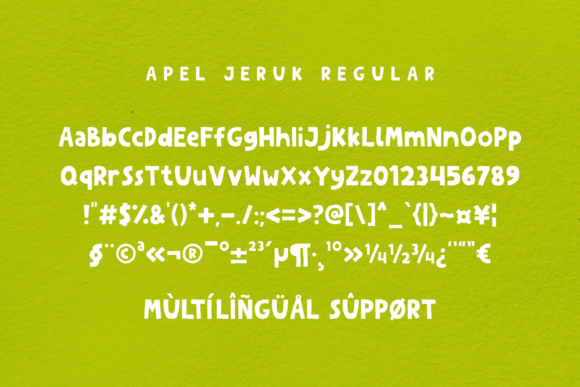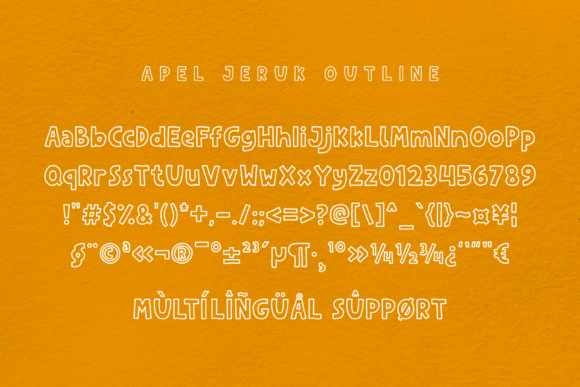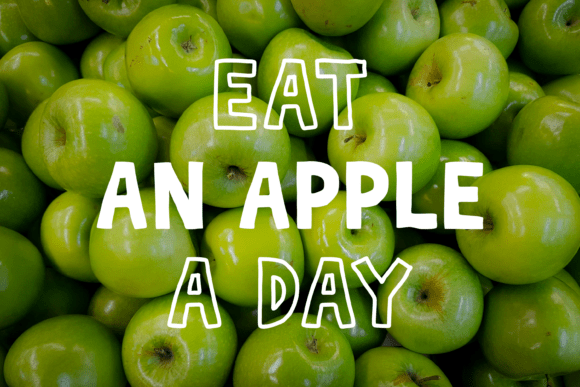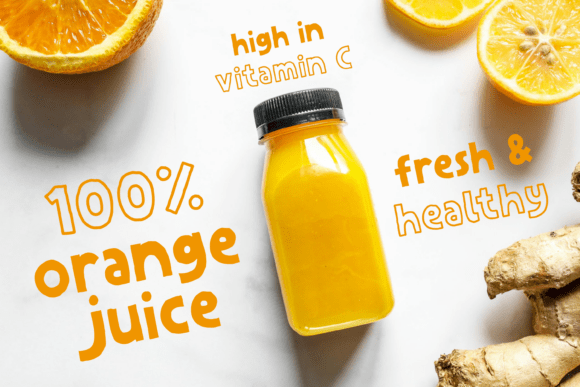
Introducing Apel Jeruk Font: The Ultimate Playful Display Font
Are you tired of using the same old fonts for your designs? Do you want to add a touch of playfulness and uniqueness to your projects? Look no further than Apel Jeruk Font! This fun handwritten display font is perfect for designers and crafters who want to make a statement with their work.
What is Apel Jeruk Font?
Apel Jeruk is a fun and playful handwritten display font that consists of two versions: a solid and an outline version. This dual-version font offers versatility and flexibility, making it perfect for a wide range of design projects. Whether you’re working on posters, printed quotes, digital designs, or any other project that requires a unique and eye-catching look, Apel Jeruk Font is the perfect choice.
Key Features of Apel Jeruk Font
- Playful and Unique Look: Apel Jeruk Font has a distinctive and playful look that will add a touch of personality to your designs.
- Solid and Outline Versions: The font comes in two versions, allowing you to experiment with different design options and styles.
- Handwritten Style: The font has a handwritten style that gives it a personal and organic feel.
- Perfect for Display Purposes: Apel Jeruk Font is designed specifically for display purposes, making it perfect for headlines, titles, and other attention-grabbing elements.
Use Cases for Apel Jeruk Font
Apel Jeruk Font is a versatile font that can be used in a wide range of design projects, including:
- Posters: Add a playful touch to your posters with Apel Jeruk Font.
- Printed Quotes: Use the font to create eye-catching printed quotes that will grab attention.
- Digital Designs: Apel Jeruk Font is perfect for digital designs, such as social media graphics, blog posts, and website headers.
- Crafting Projects: The font is also great for crafters who want to add a personal touch to their projects, such as handmade cards, scrapbooking, and DIY signs.
Why Choose Apel Jeruk Font?
There are many fonts available that offer a similar playful and unique look, but Apel Jeruk Font stands out from the rest. Here are a few reasons why:
- High-Quality Design: Apel Jeruk Font is designed with high-quality and attention to detail, ensuring that it looks great in any design project.
- Easy to Read: Despite its playful look, Apel Jeruk Font is easy to read and understand, making it perfect for display purposes.
- Versatile: The font is versatile and can be used in a wide range of design projects, from posters to digital designs.
Tips for Using Apel Jeruk Font
Here are a few tips for using Apel Jeruk Font in your design projects:
- Experiment with Different Sizes: Apel Jeruk Font looks great in large sizes, but it can also be used in smaller sizes to add a touch of personality to your designs.
- Pair with Other Fonts: The font pairs well with other fonts, so don’t be afraid to experiment with different font combinations.
- Use the Outline Version: The outline version of Apel Jeruk Font is perfect for adding a subtle touch of personality to your designs.
Apel Jeruk Font is a fun and playful handwritten display font that is perfect for designers and crafters who want to add a touch of personality to their projects. With its solid and outline versions, the font offers versatility and flexibility, making it perfect for a wide range of design projects. Whether you’re working on posters, printed quotes, digital designs, or any other project that requires a unique and eye-catching look, Apel Jeruk Font is the perfect choice.